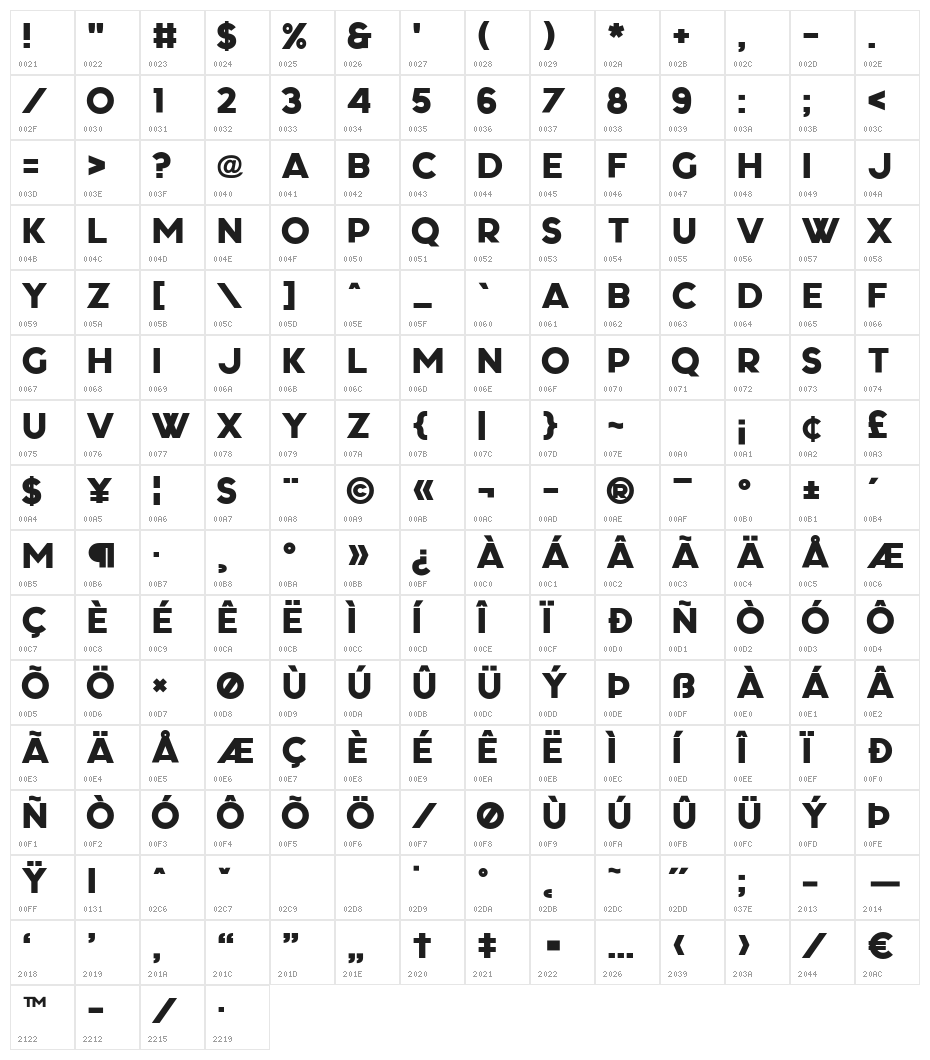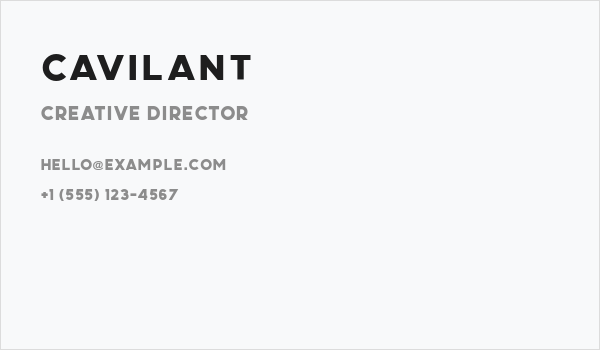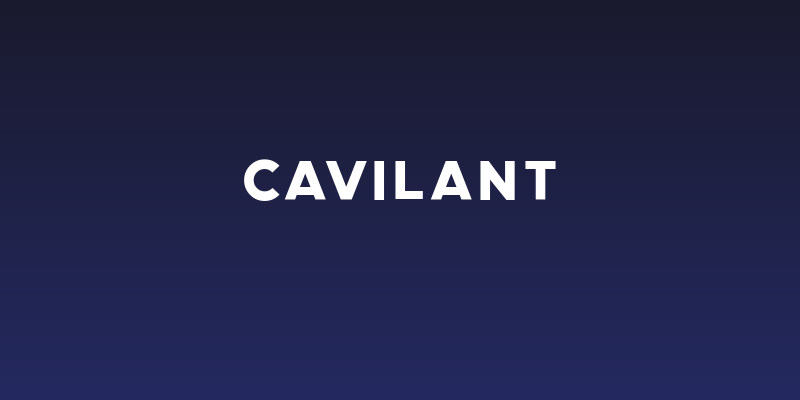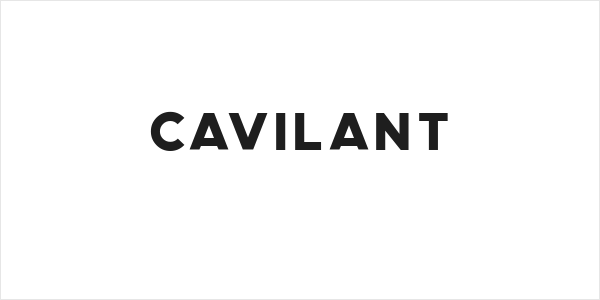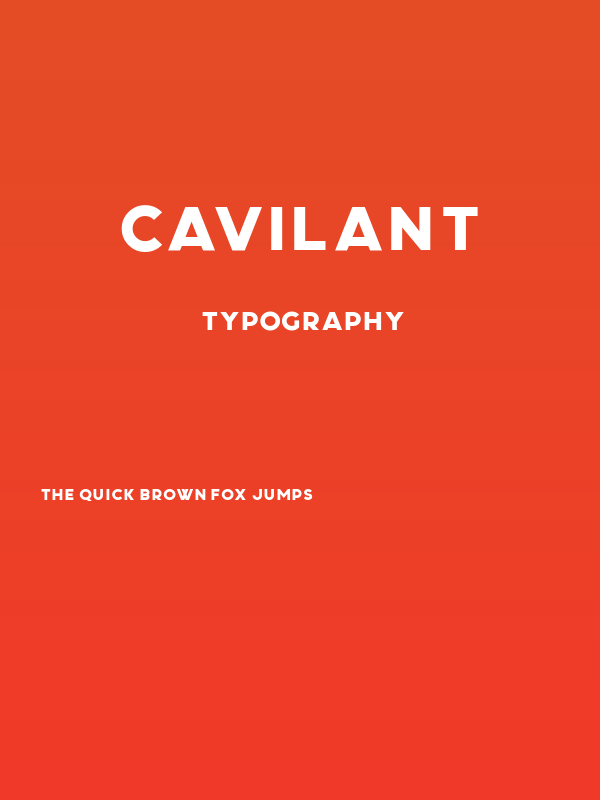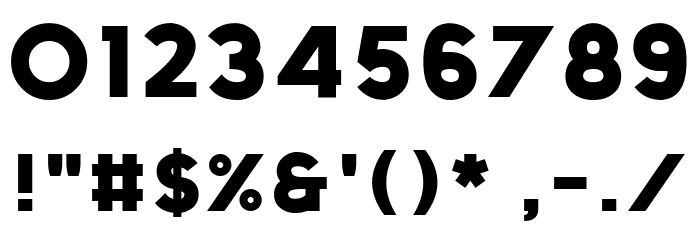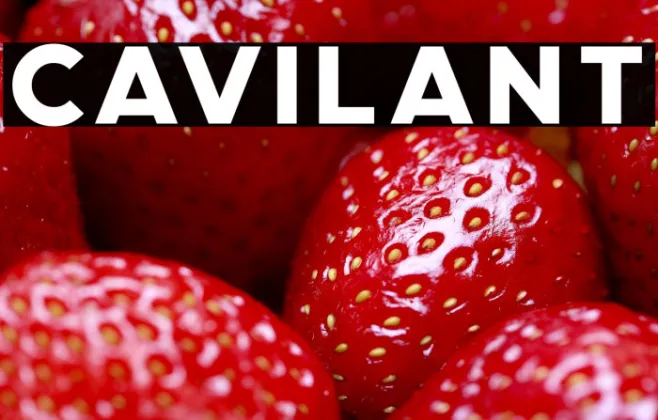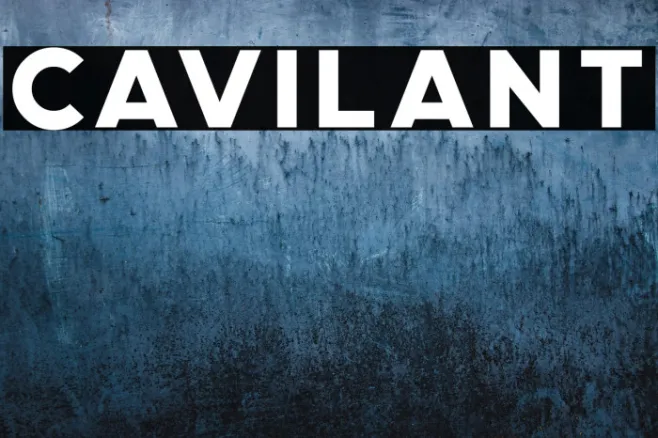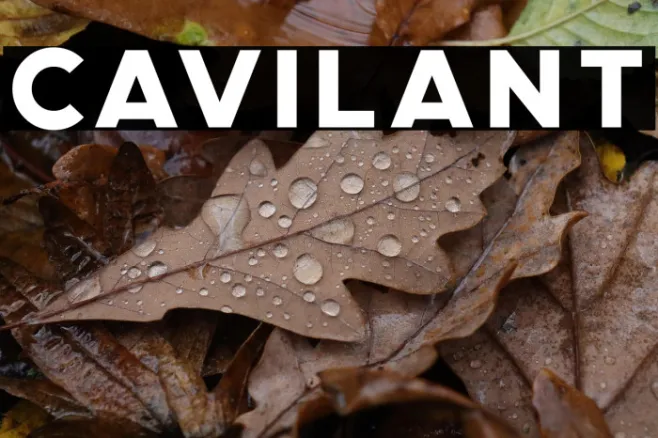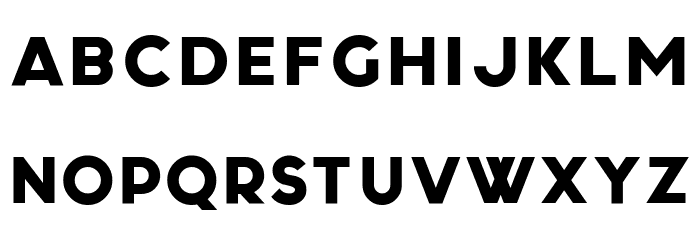
Cavilant Font
Cavilant Description
This font features a bold and modern sans-serif style with clean, geometric lines and a strong presence. The uppercase and lowercase letters maintain a consistent weight, contributing to a uniform appearance. The numbers are equally bold, ensuring readability and impact. Special characters are designed with the same attention to detail, making them suitable for various applications. The overall design is minimalistic yet powerful, ideal for making statements in both digital and print media.
| Proposed Projects | Ideal for branding, headlines, posters, and digital media where a strong, modern look is desired. |